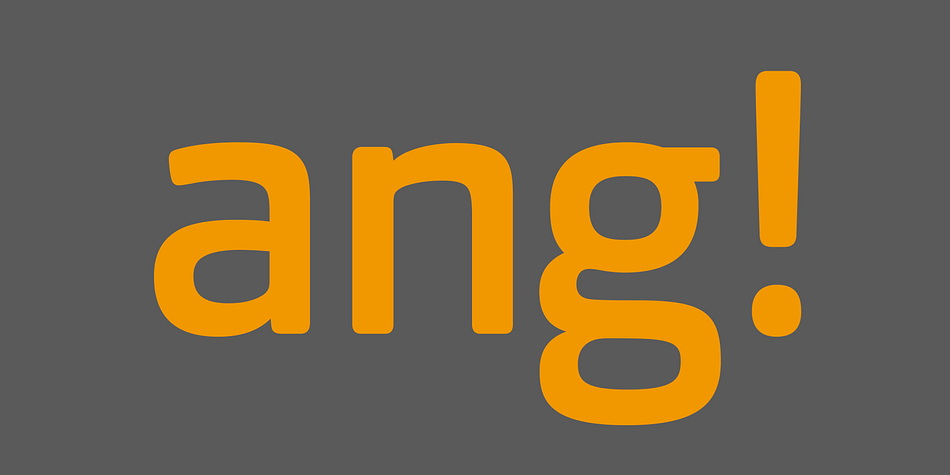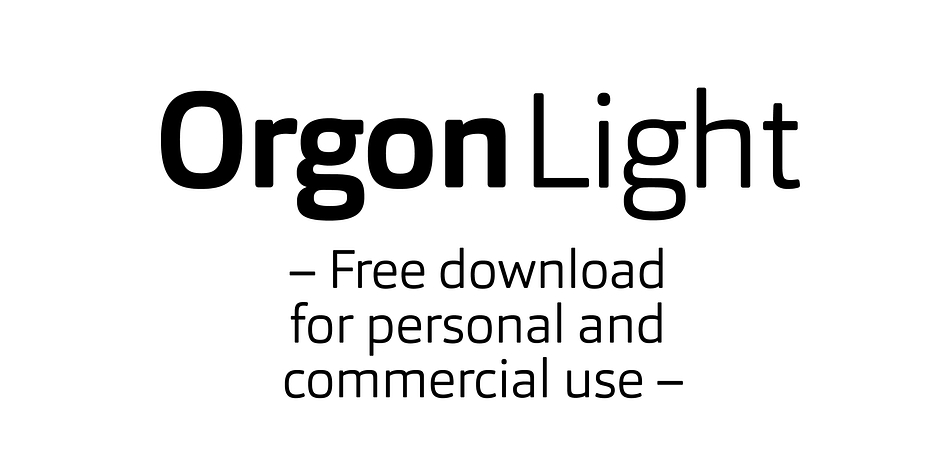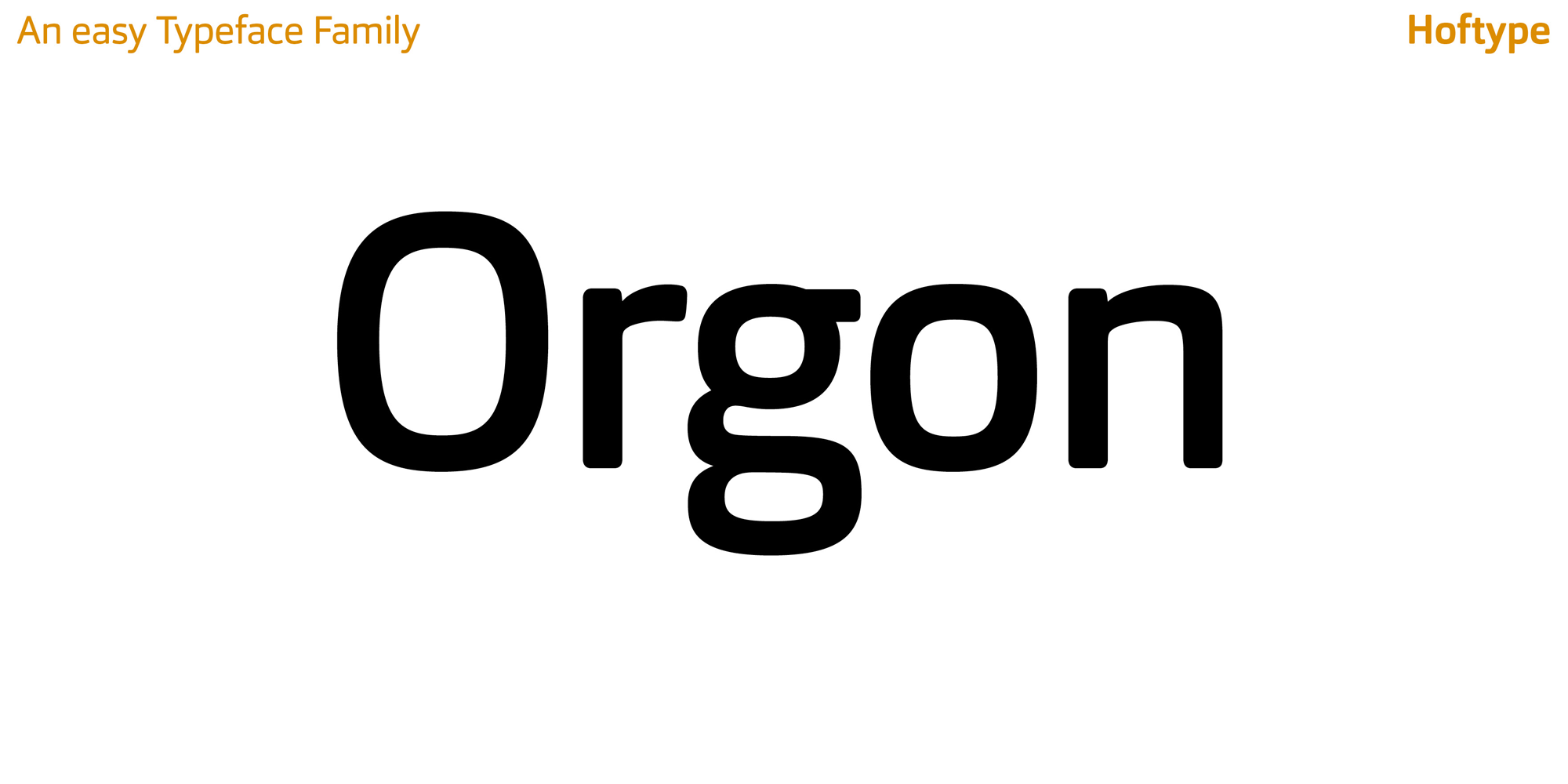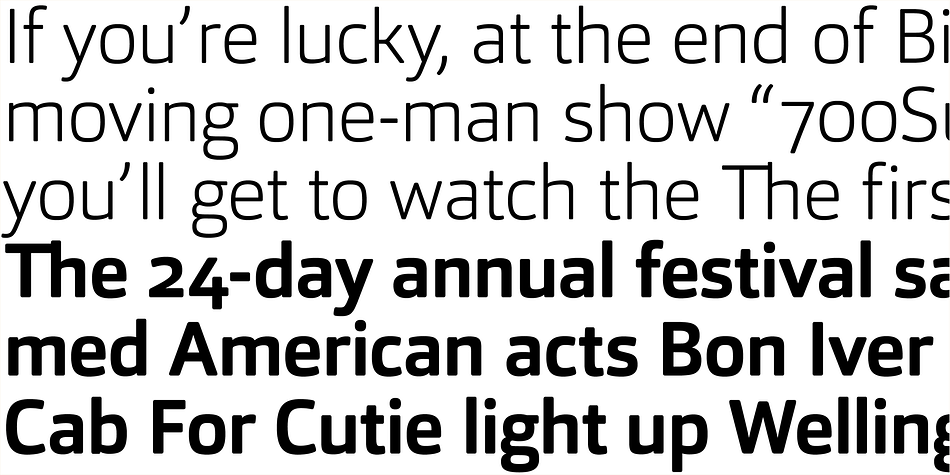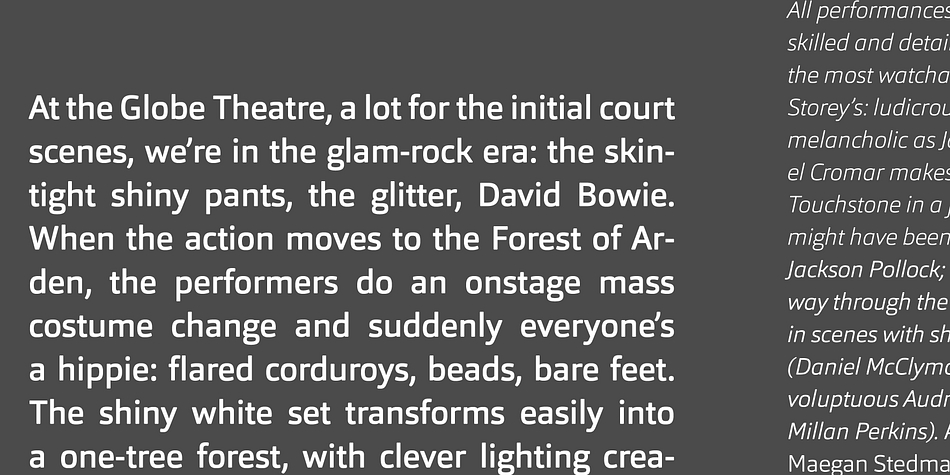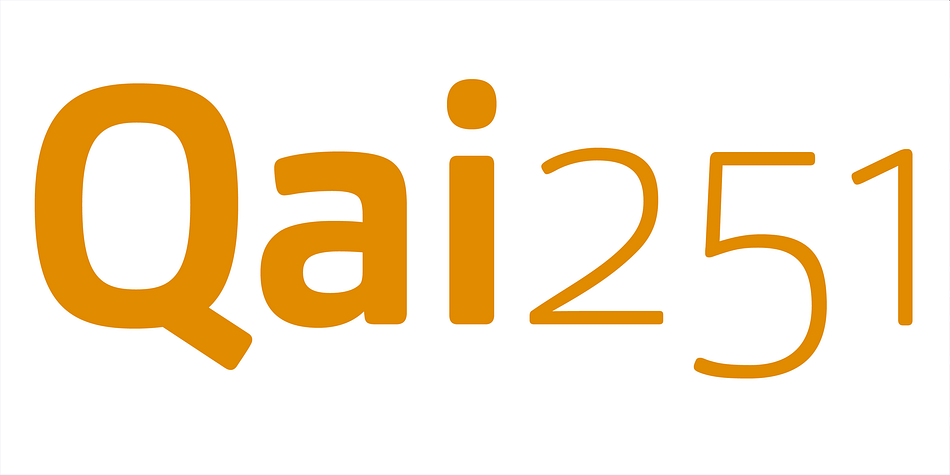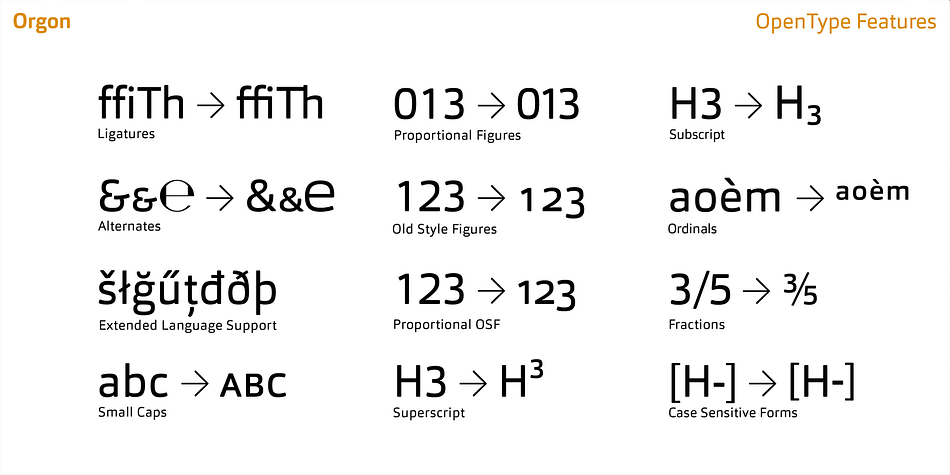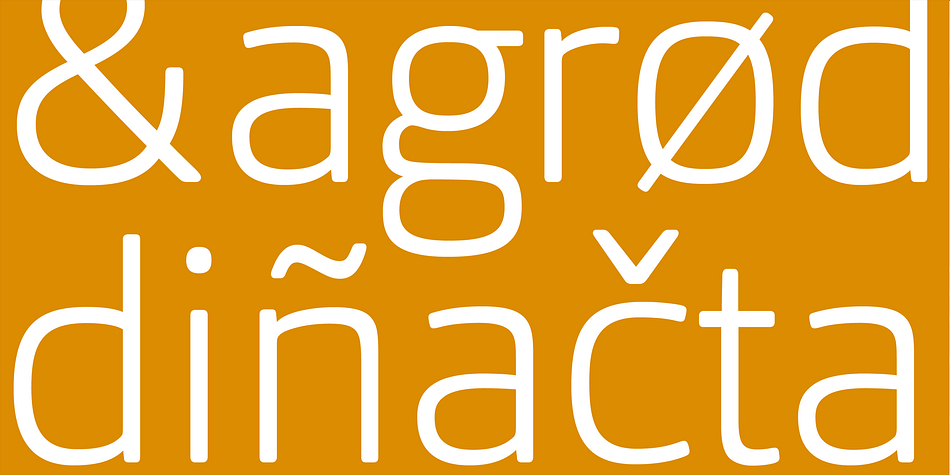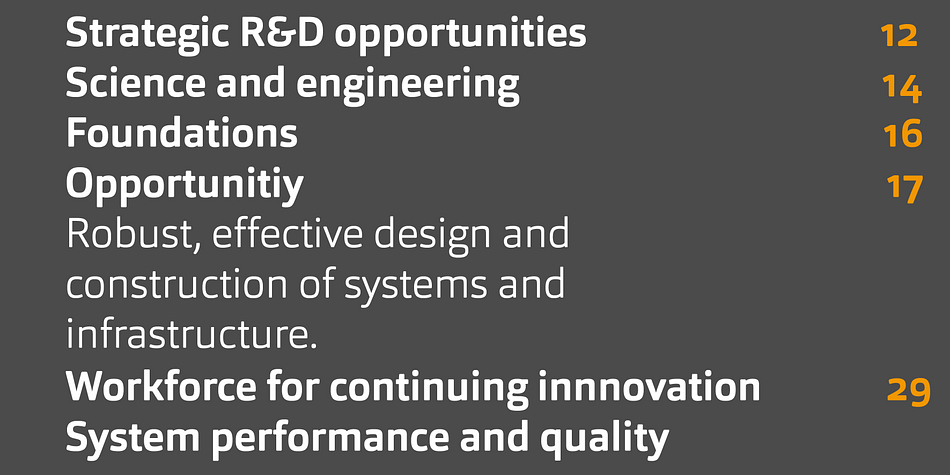
Orgon is a sans serif font family. This typeface has sixteen styles and was published by Hoftype.
Orgon, a new linear typeface family, fresh and easy but with a warm touch. It appears uncomplicated, unpretentious, but still distinctive. Its quiet text flow allows smooth reading even for longer texts.
The Orgon family comprises 16 styles and is well suited for ambitious typography. It comes in OpenType format with extended language support. All weights contain ligatures, small caps, superior characters, proportional lining figures, tabular lining figures, proportional old style figures, lining old style figures, matching currency symbols, fraction- and scientific numerals and matching arrows.